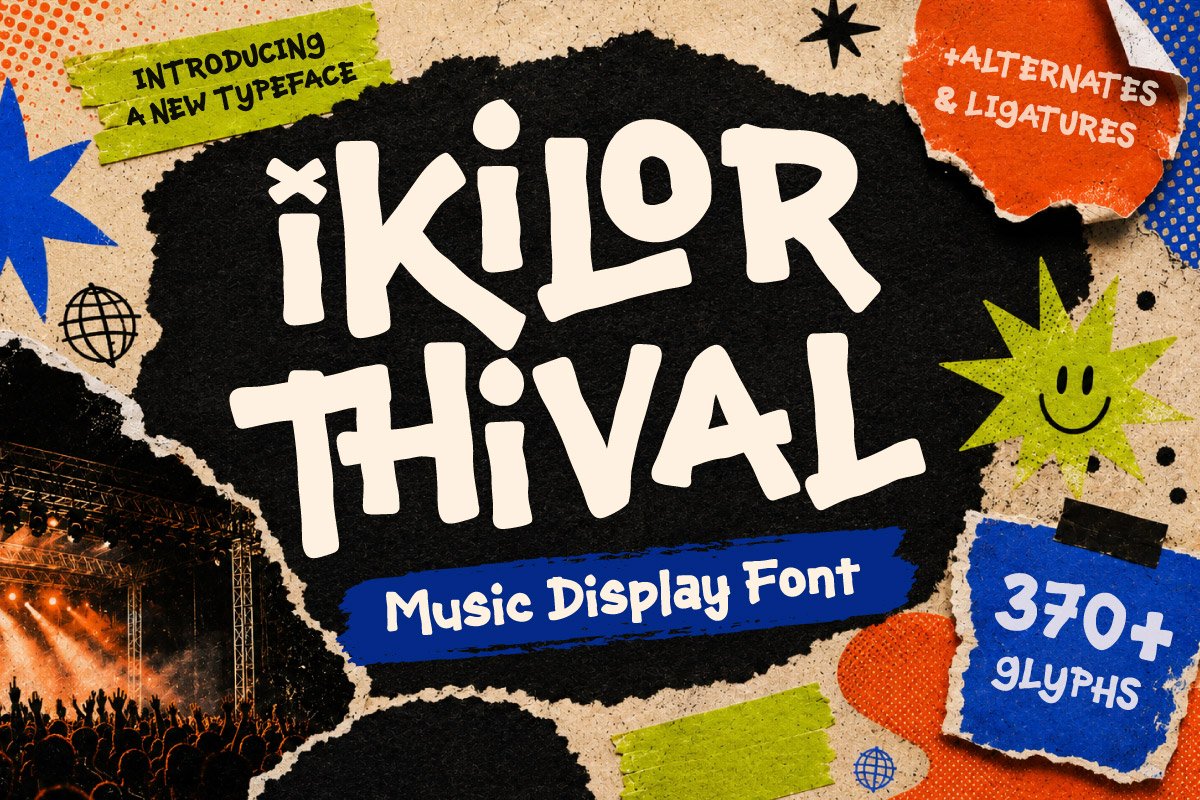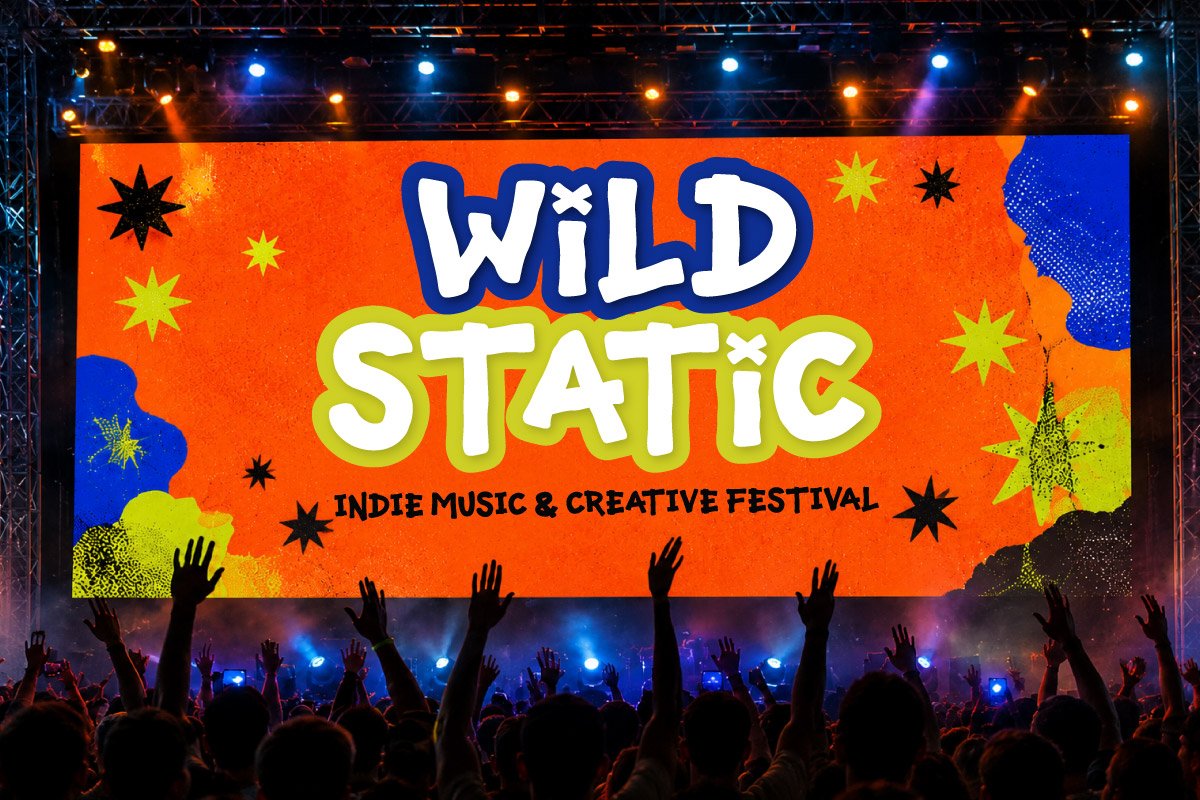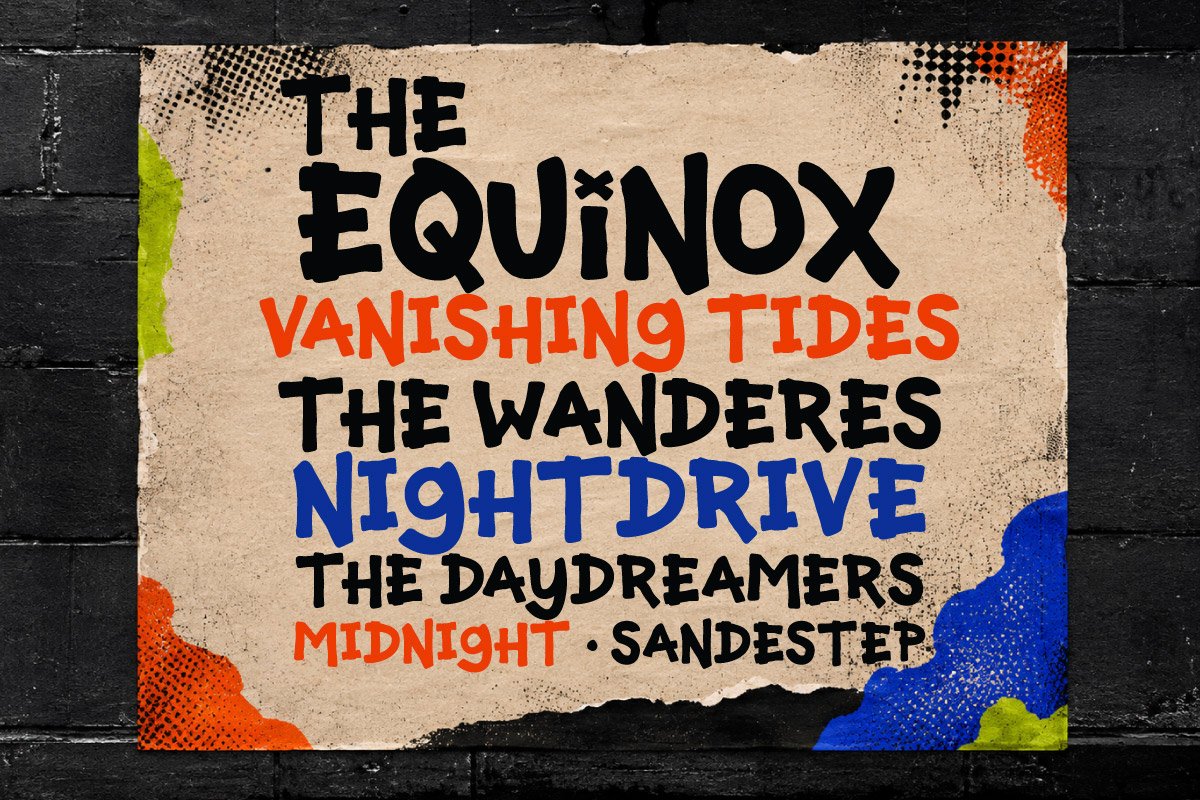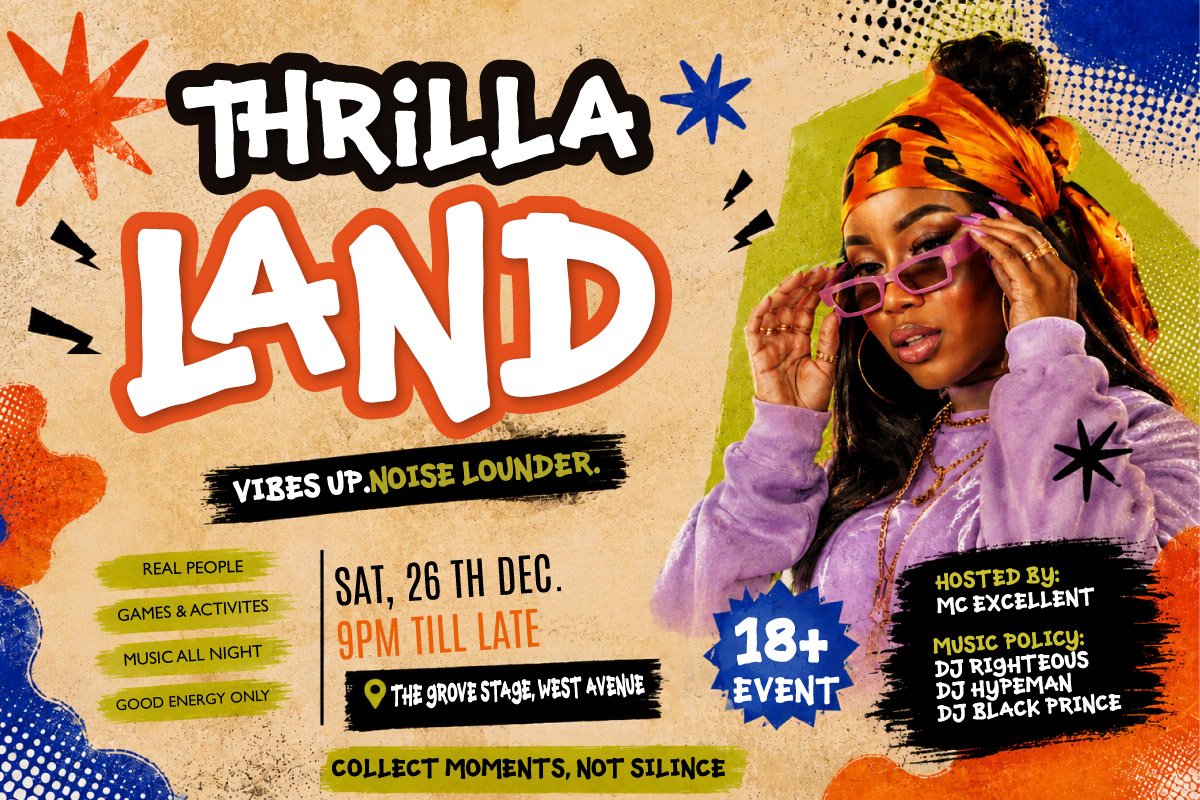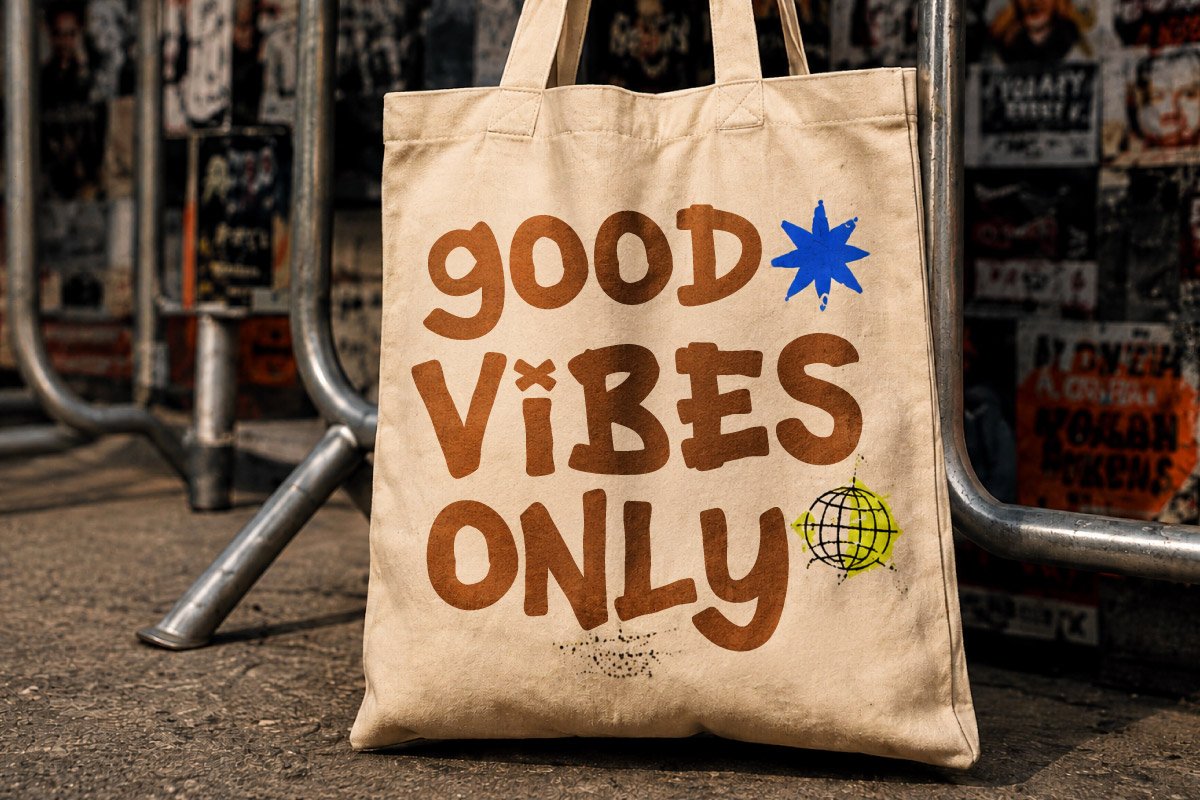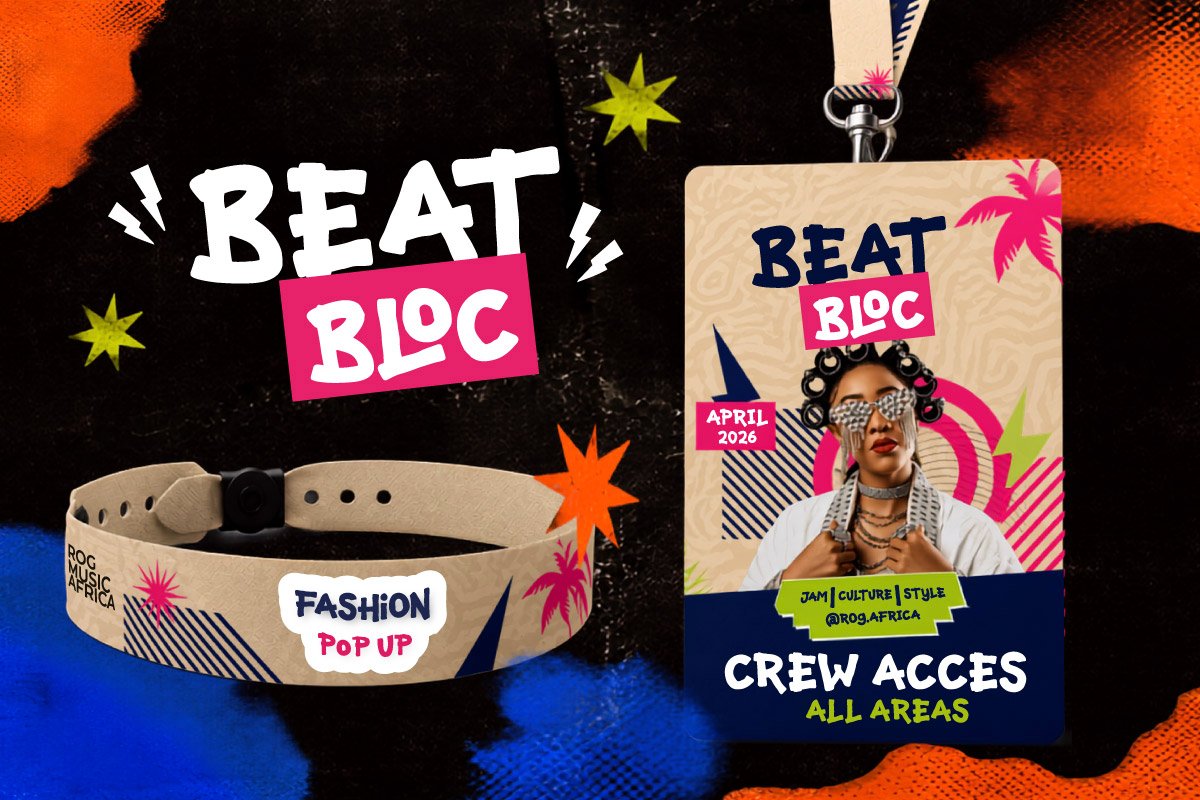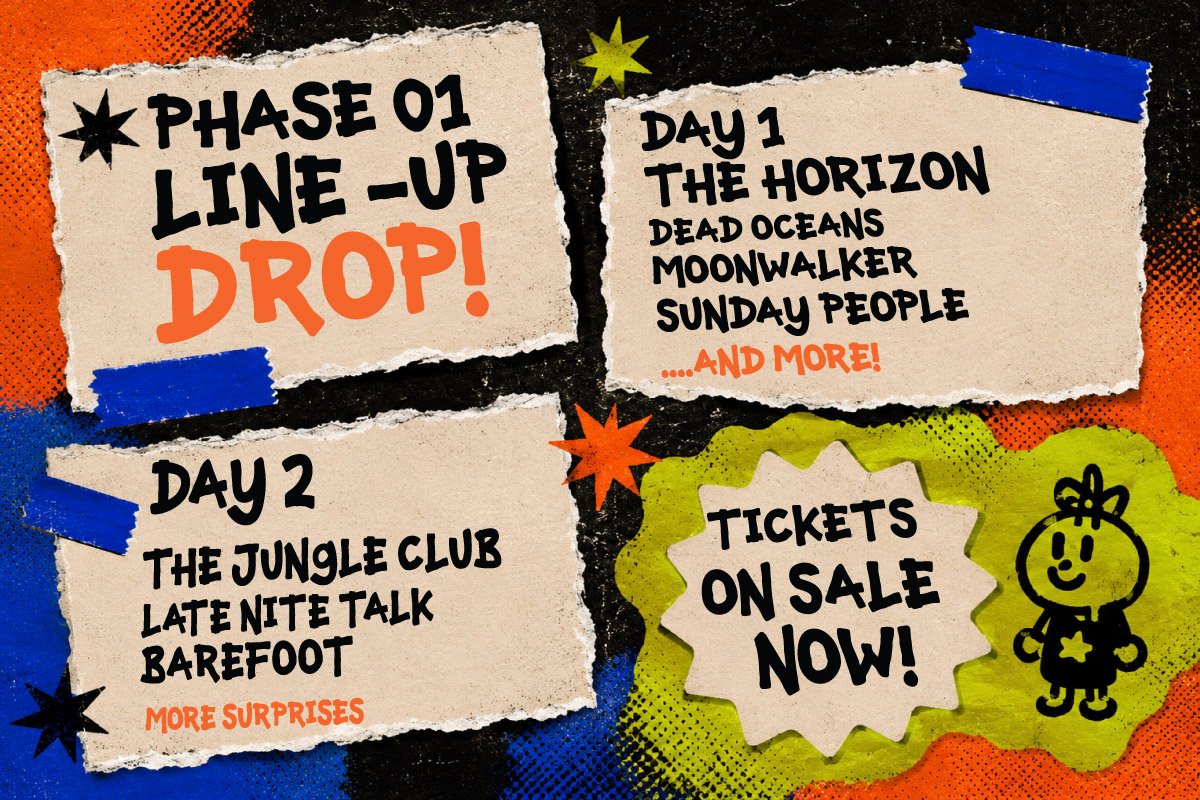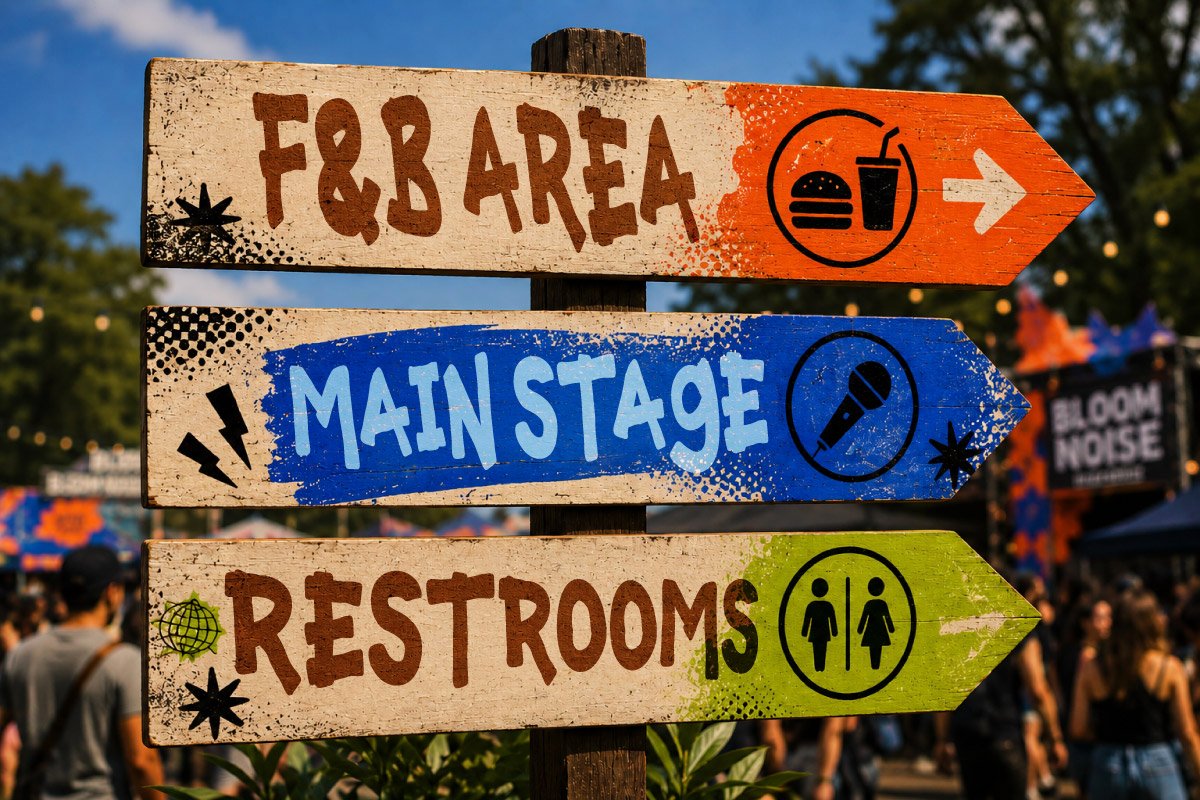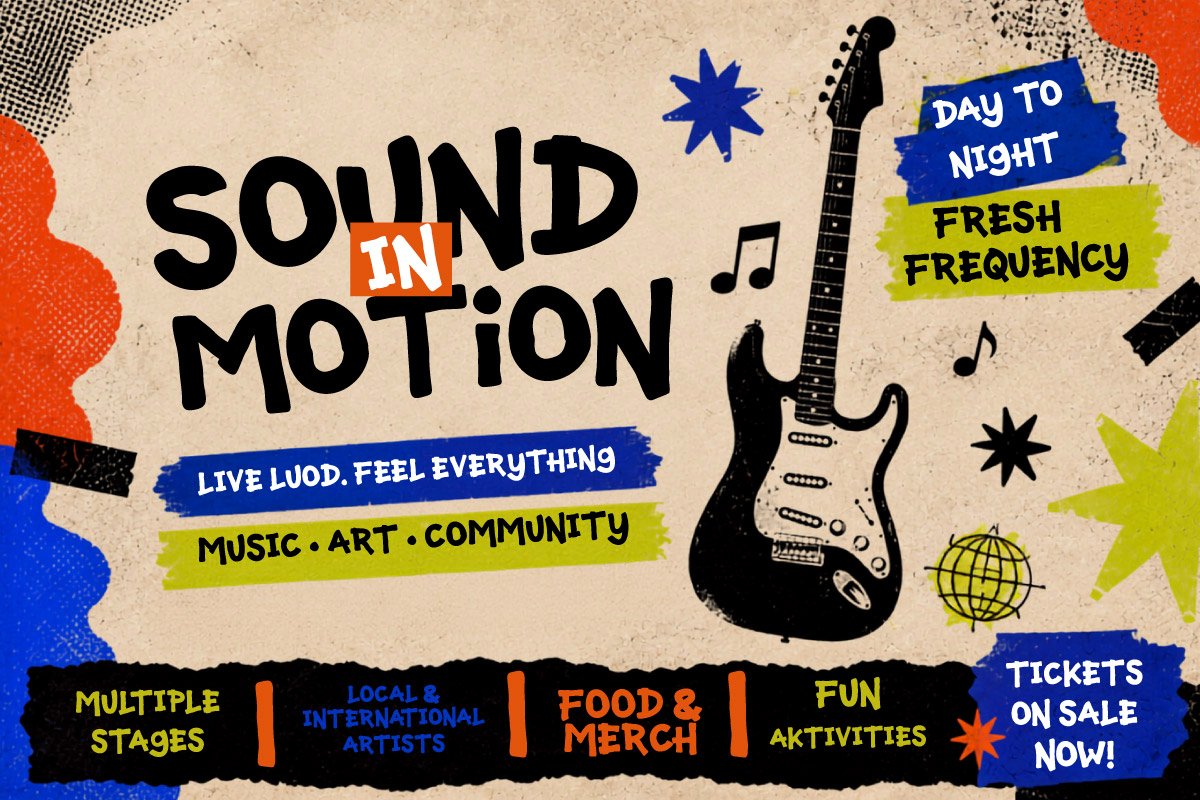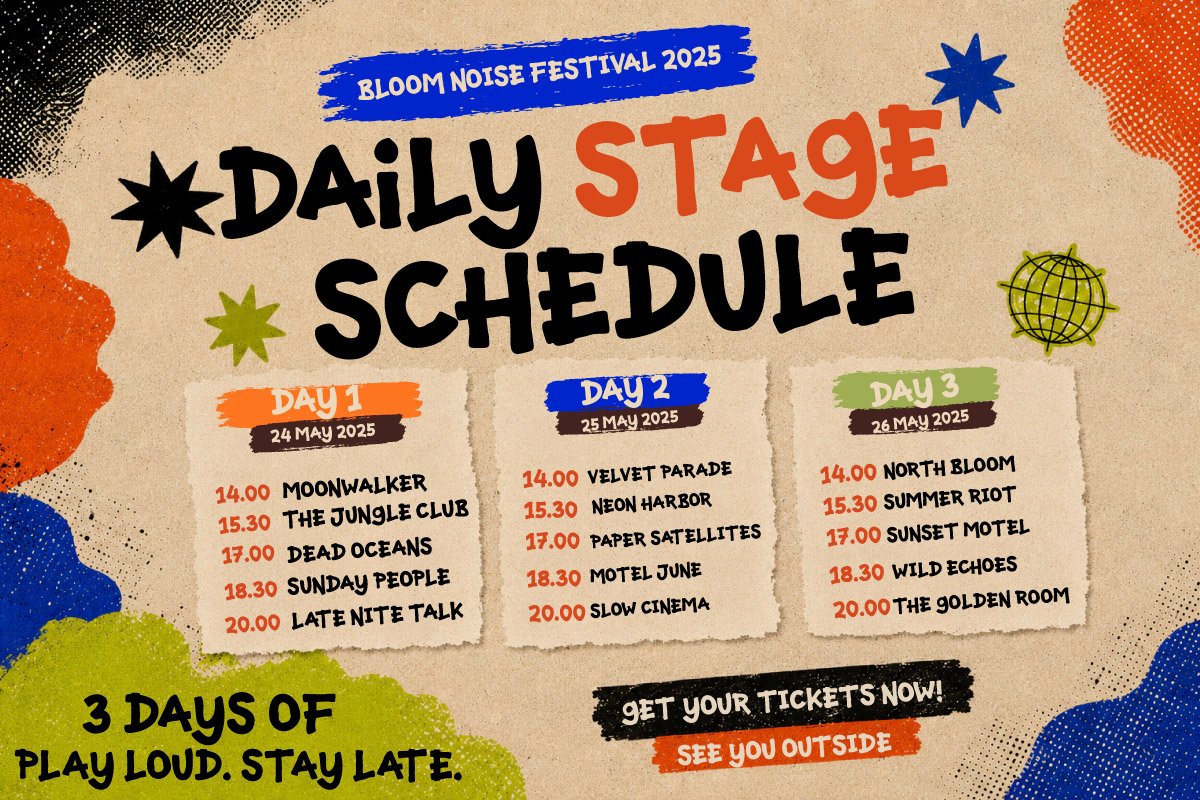
- Ikilor Thival – Music Display Font
Ikilor Thival – Music Display Font is a bold, playful, and expressive display typeface created to bring strong energy to music and entertainment designs. Its chunky letterforms and distinctive personality make it highly attention-grabbing and perfect for headlines, posters, campaigns, and promotional artwork.
This font is ideal for music festivals, concert posters, parties, DJ events, summer events, nightlife, tours, and entertainment branding. Ikilor Thival also works beautifully for merchandise, album artwork, social media promotions, event tickets, stage graphics, and advertising projects that need a bold and memorable visual identity.
With its versatile display character, Ikilor Thival helps designers create energetic, youthful, and modern visuals. It is a strong choice for graphic designers, event organizers, musicians, creative agencies, and entertainment brands looking to make their designs stand out.